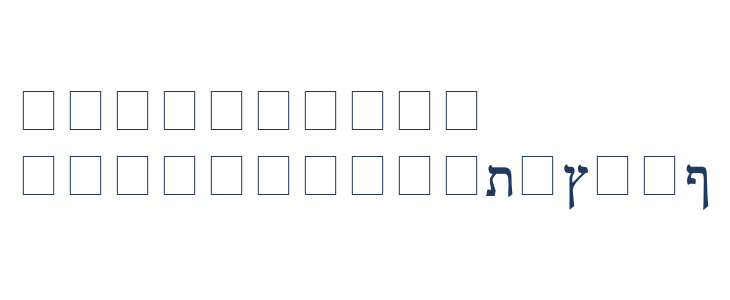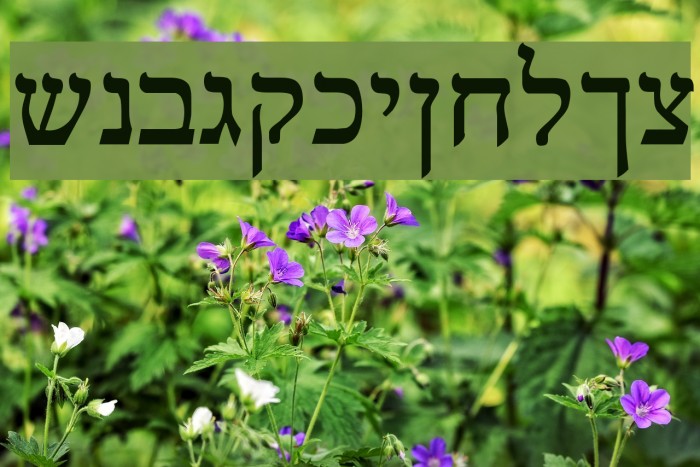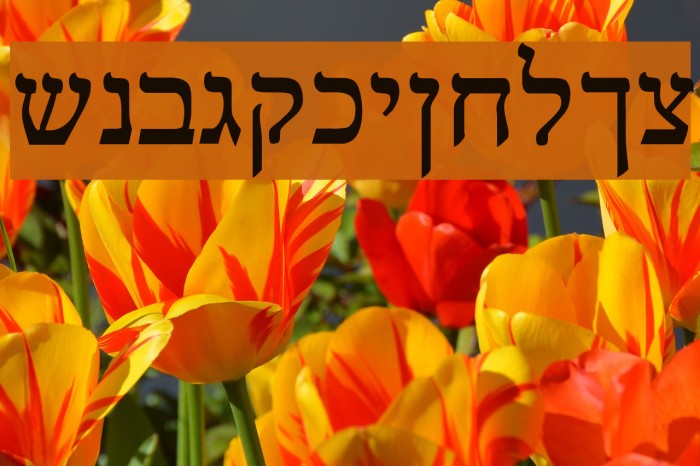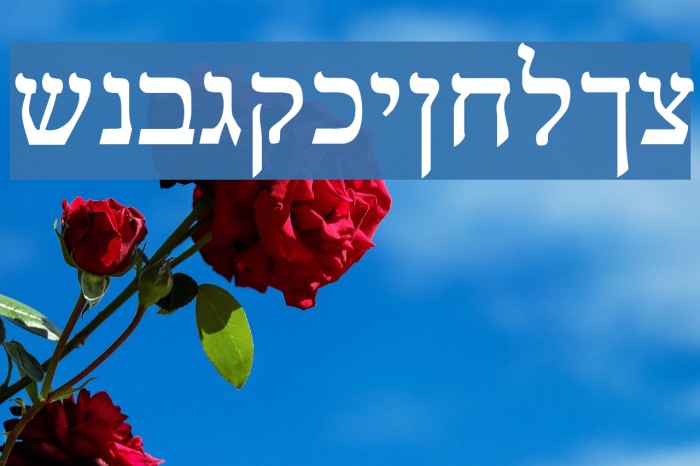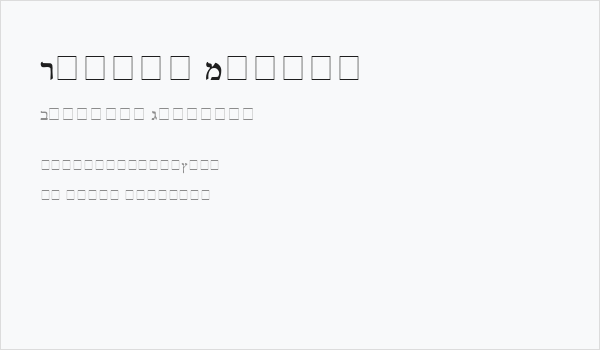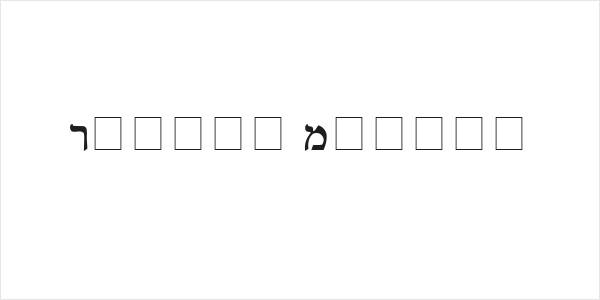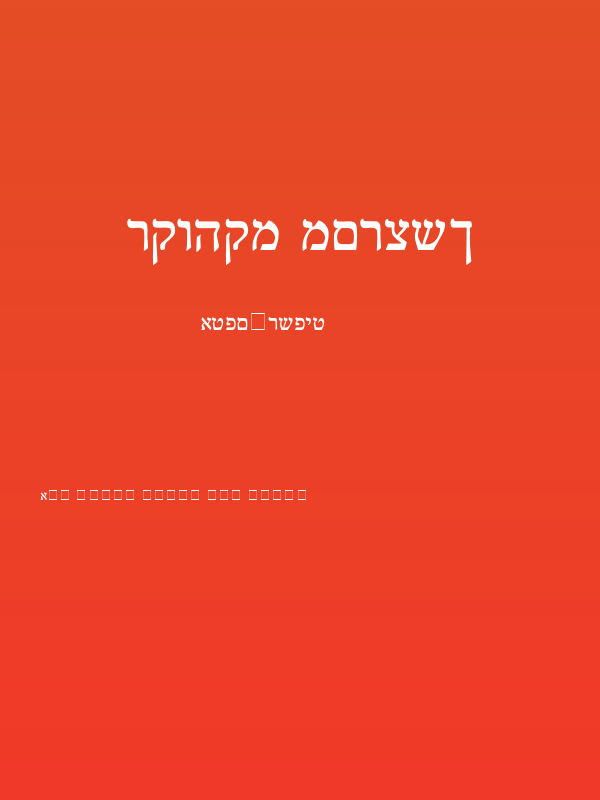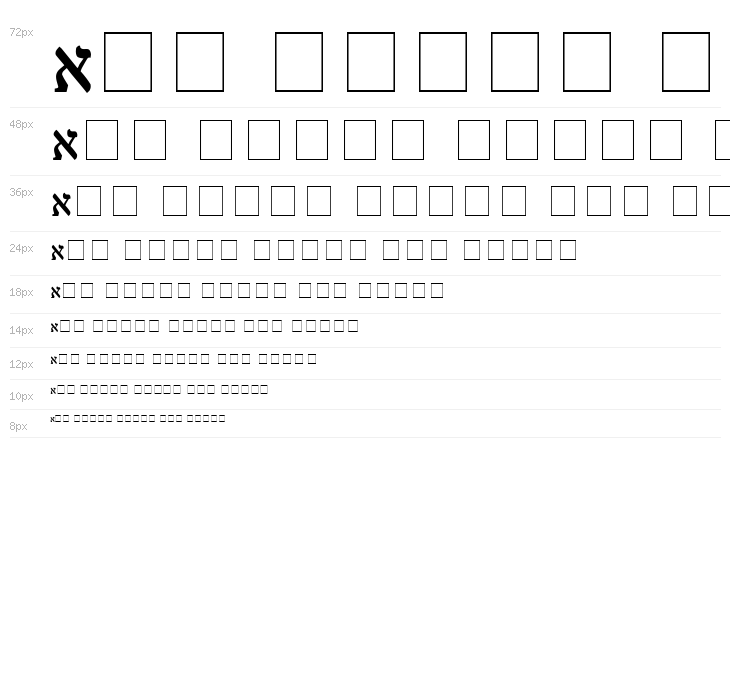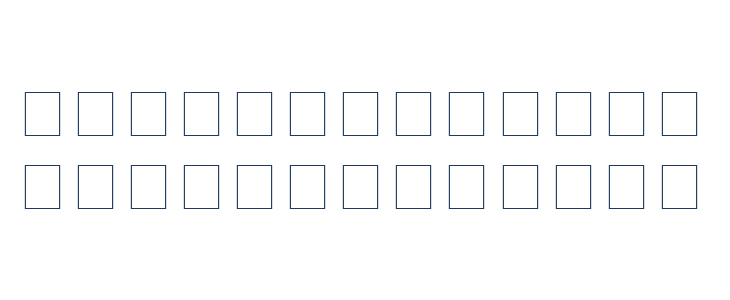
Reuven Normal Font
Reuven Normal Description
This font features Hebrew characters with a bold and traditional appearance. The strokes are thick and well-defined, giving each letter a strong presence. The serifs are pronounced, adding a classic touch to the overall design. The font maintains a consistent weight throughout, ensuring readability and clarity. The spacing between characters is balanced, allowing for smooth text flow. This font is suitable for projects that require a traditional and authoritative look, such as religious texts, formal documents, or cultural publications.
| Use Case | Headlines, Body text |
| Proposed Projects | Ideal for religious texts, formal documents, cultural publications, and any project requiring a traditional Hebrew typeface. |